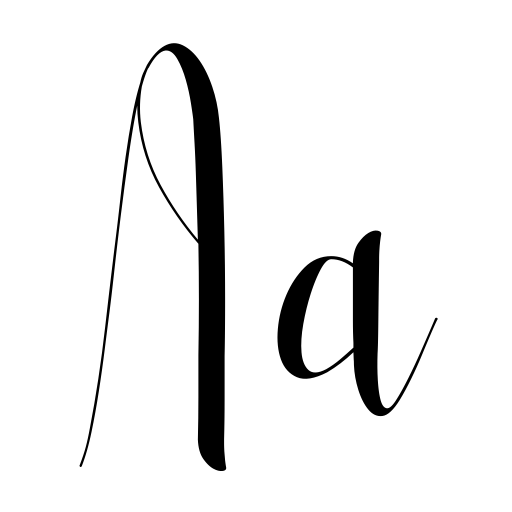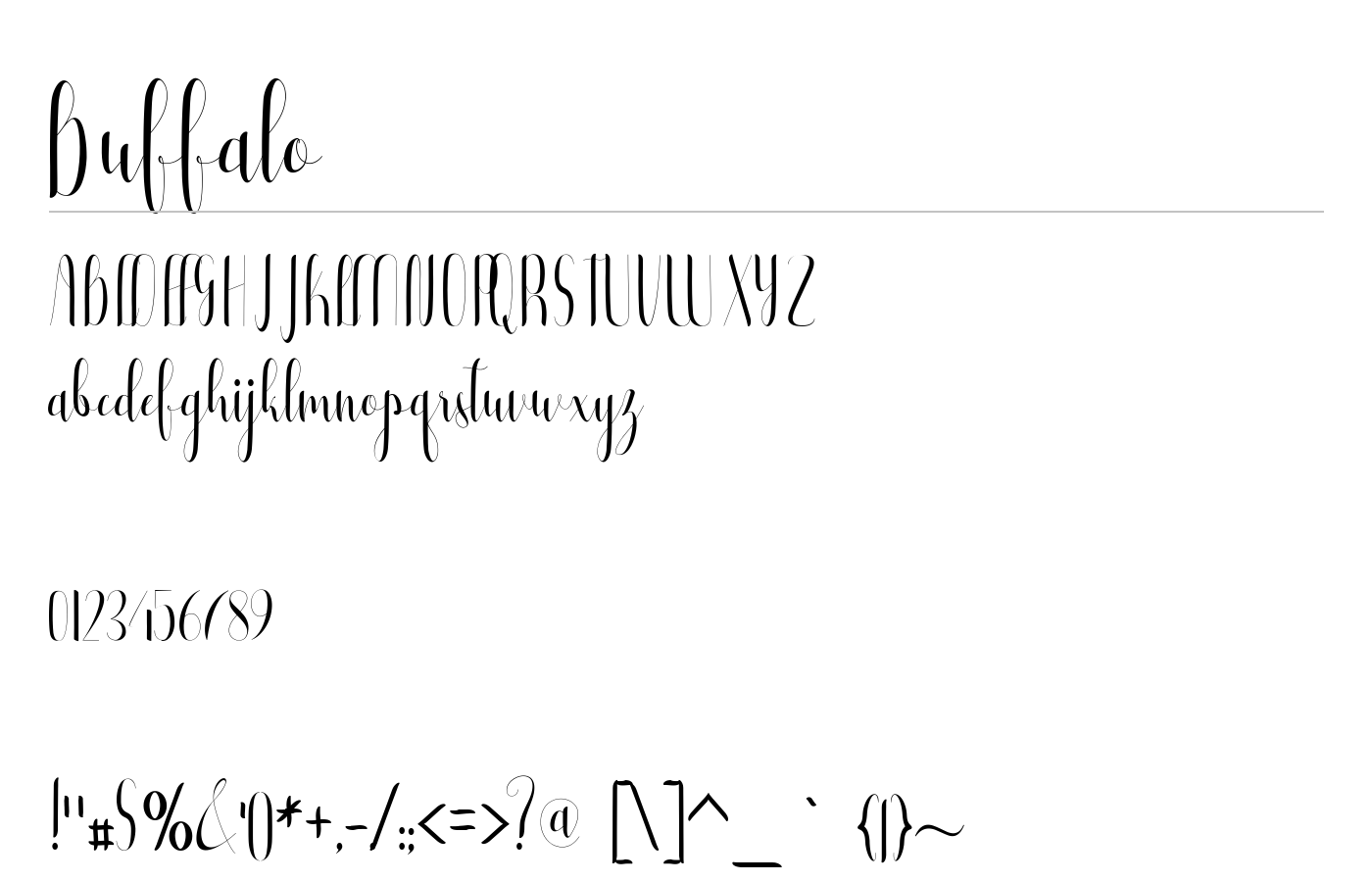
Buffalo Font is a tall, elegant script typeface with a delicate yet dramatic contrast between thick and thin strokes. Its narrow, flowing letterforms and distinctive flourishes give it a sophisticated, modern, and expressive personality, perfect for adding a stylish, handcrafted touch to invitations, branding, and luxurious editorial designs. This font shines in headlines or logos where its unique charm can truly stand out.
Buffalo Font